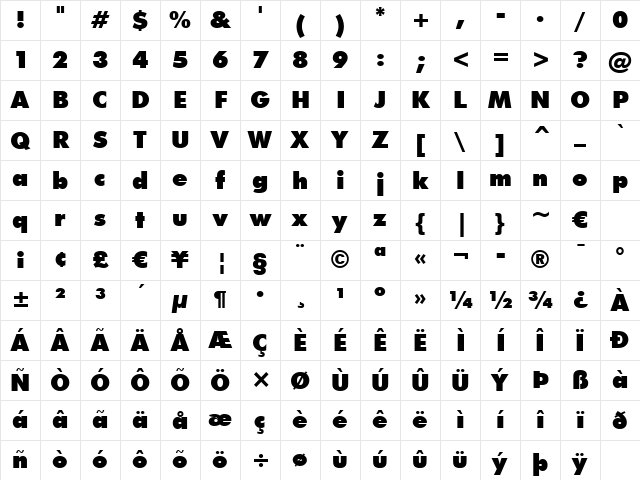
Futura XBlk BT Extra Black
Design Context for Futura XBlk BT
Futura XBlk BT has a distinctly futuristic character, with geometric precision and clean angles that feel at home in technology, gaming, and sci-fi contexts.